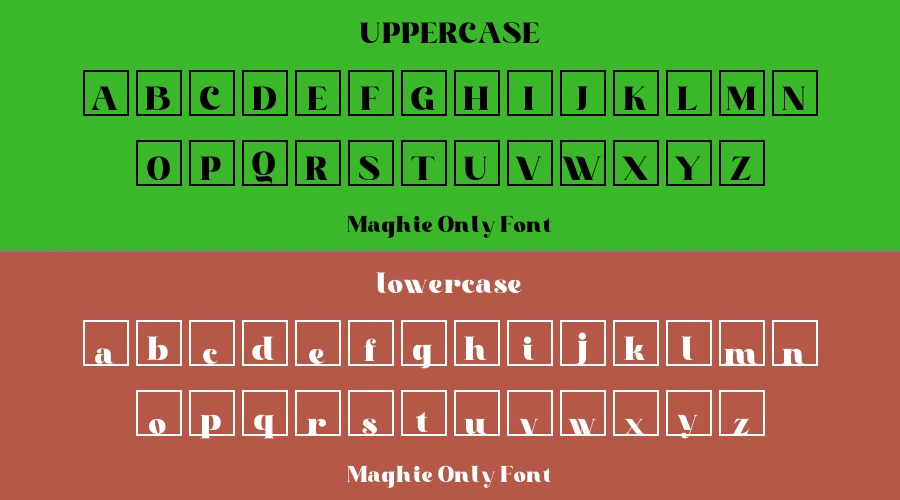
About Maghie Only Font
Designed with precision, Maghie Only Font merges commanding presence with technical precision in every character. This versatility makes it particularly effective for logo design, where integrity and market appeal directly impact communication quality. Each letterform demonstrates meticulous craftsmanship.
Technical excellence shines through elements like width contrast and automatic fractions, enhancing typographic versatility. In warning labels settings, Maghie Only Font proves its worth through superior small text clarity. The thoughtful execution of curve radius and contemporary relevance ensures professional results.